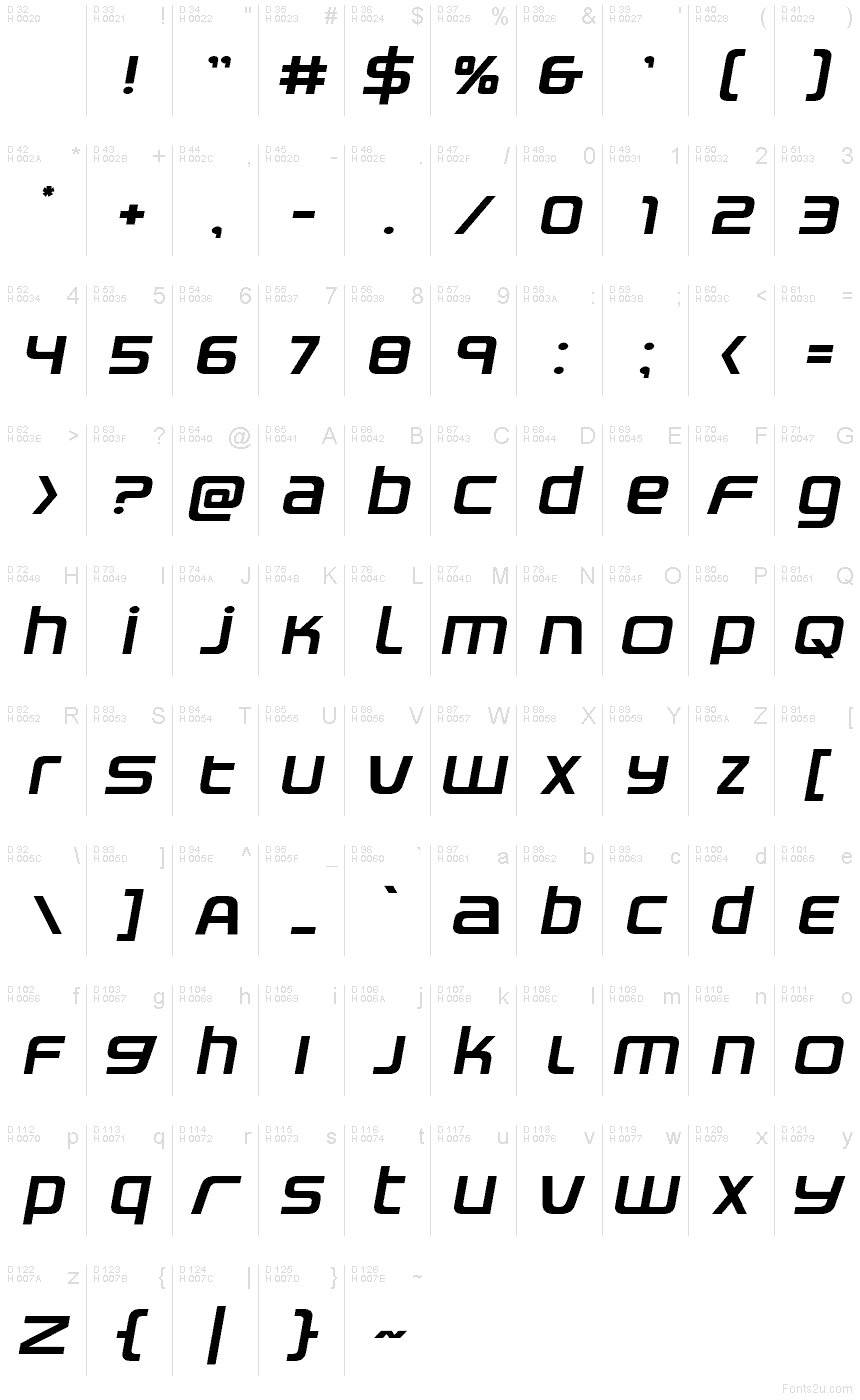
Iconoplastic Expanded Semi-Ita
Iconoplastic Expanded Semi-Italic font by Iconian Fonts is a free expanded semi-italic futuristic display font. Built within the Iconoplastic family, it solves a common tech-branding challenge: projecting speed and innovation without sacrificing legibility. Its wide stance, gentle forward lean, and smooth, uniform strokes read cleanly at a distance, while crisp clipped terminals keep the texture sharp rather than bubbly.
Using Iconoplastic Expanded Semi-Italic, headlines snap into place for esports wordmarks, sci‑fi posters, hardware packaging, app splash screens, automotive graphics, and event badges. The steady rhythm and generous horizontal spread create confident, aerodynamic titles that don’t wobble under tight deadlines. Pair this free font with a compact geometric sans for body copy, and set it large with slightly reduced tracking to emphasize that sleek, high-velocity flow.